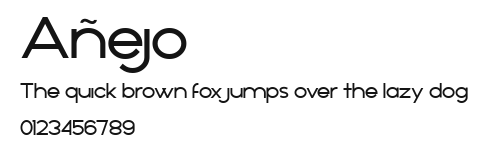
Añejo.ttf is a modern, elegant sans-serif font designed for ultimate readability and visual harmony. Perfect for branding, headlines, web design, and print materials.